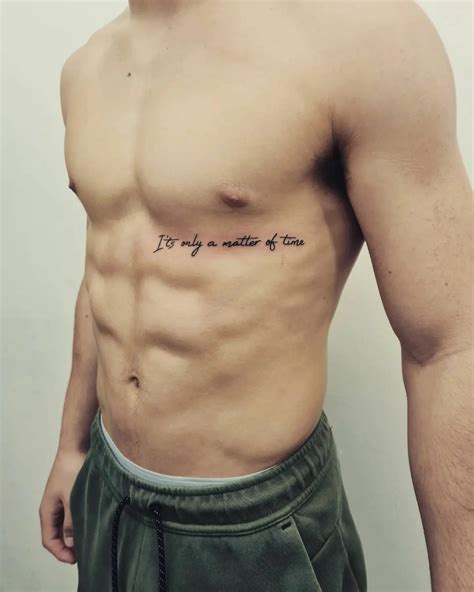
It is a great tattoo font idea for men and is especially favored by men in the american military. Here is a bible verse tattoo on rib cage of this man. Awesome tattoo ideas can range from small and simple to creative and meaningful.
This is the reason why we decided to pick up the best tattoo quotes for men. 236 free tattoo fonts · 1001 fonts tattoo fonts ideas for men ideas and designs for guys from www.menstattooideas.net picking a font for your next tattoo is a very important decision. Here is a bible verse tattoo on rib cage of this man. Words of wisdom, quotes, custom text, and more can be included with.
27 exotic tattoo fonts for men. Font design and ideas make the perfect compliment to any tattoo. Fortunately, we have many unique tattoo font styles for men and women, such as calligraphy, cursive, and traditional styles. See more ideas about tattoo lettering, tattoo lettering fonts, tattoo lettering styles. Other popular fonts used in tattoos include:
This is an almost flawless example of chicano style font tattoos for men. It has a bold attractive look that will make the text on your designs look like a label from an old packaging. There’s a strange beauty to the way people write words, and with enough practice, it is possible to become an expert. Tattoo fonts perfectly carry.
Here is a bible verse tattoo on rib cage of this man. Words of wisdom, quotes, custom text, and more can be included with. Whatever the message you choose for your tattoo, it is the font that gives an extra dimension to the design. Find and download the right font for your next tattoo. Picking a font for your next.
Tattoo fonts have managed to generate quite a big fuss among the tattoo lovers. There are actually tons of tattoo fonts for men that can make or break tattoo designs. Celtic fonts, graffiti fonts, blade. Old english fonts are also used a lot in tattoo designs because they have a distinguished look and evoke some medieval atmosphere. Bible does not.
Awesome tattoo ideas can range from small and simple to creative and meaningful. The tattoo is a patriotic symbol and is often worn with a great sense of pride. Find and download the right font for your next tattoo. Fortunately, we have many unique tattoo font styles for men and women, such as calligraphy, cursive, and traditional styles. If you.
Looking for tattoo script fonts? Designs can be black and white, all black, or every color of the rainbow for a beautiful watercolor affect. Old english fonts are also used a lot in tattoo designs because they have a distinguished look and evoke some medieval atmosphere. Tattoo fonts have managed to generate quite a big fuss among the tattoo lovers..
Artistic use of tattoo fonts ideas for men. Are you planning to get a text tattoo to show off on your biceps or muscular chest? Find and download the right font for your next tattoo. Looking for tattoo script fonts? When it comes to the best tattoo designs, the possibilities are truly endless.
Here are the coolest tattoos to inspire you. From great scott, this layered font uses not a single curve in its letters, giving your designs a pointy and dominating persona. Fonts for tattoos, drawings and decorations | font & text generator. Old english fonts are also used a lot in tattoo designs because they have a distinguished look and evoke.